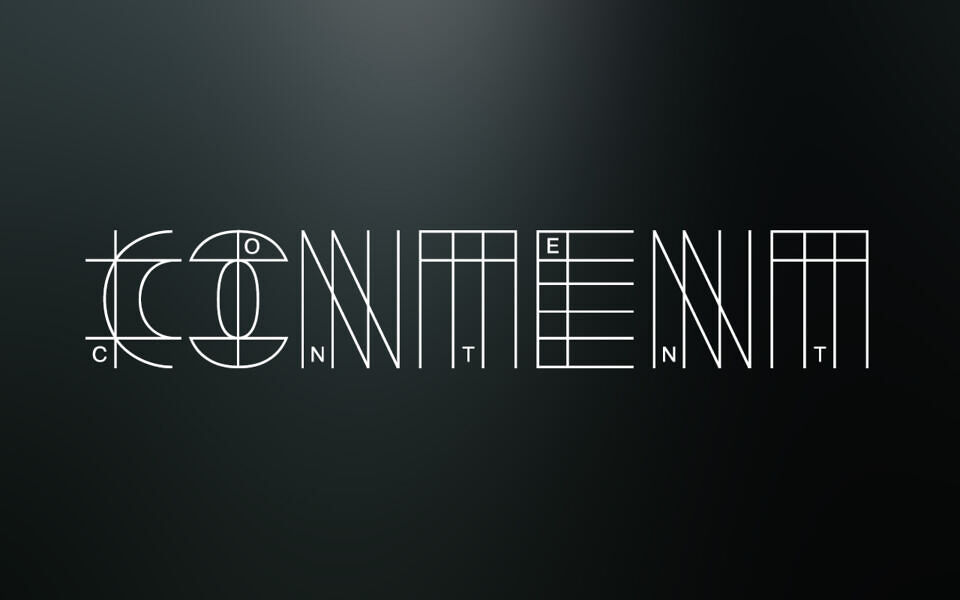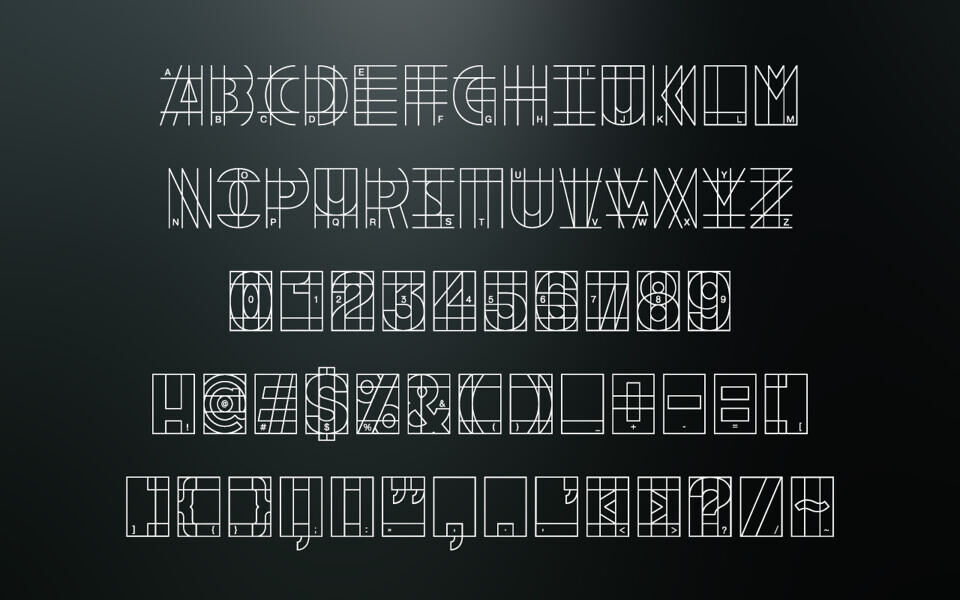
Content is a striking free geometric font with a unique architectural style. Inspired by blueprints and schematics, this display typeface features thin, monoline characters constructed within a modular grid.
Its futuristic and technical aesthetic is perfect for eye-catching headlines, logos, and creative posters. Each letter and number is a clean, decorative piece.